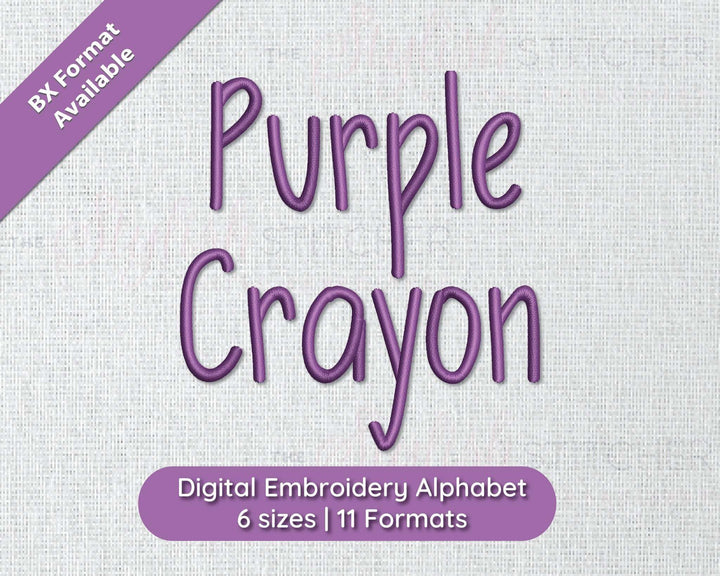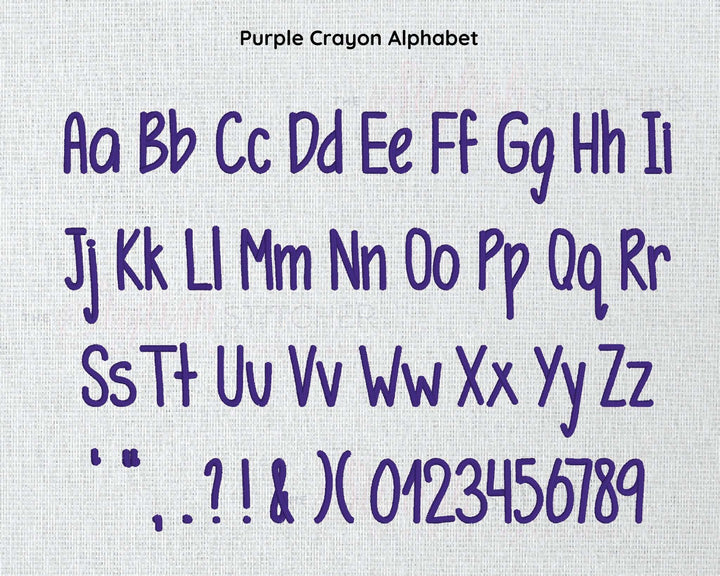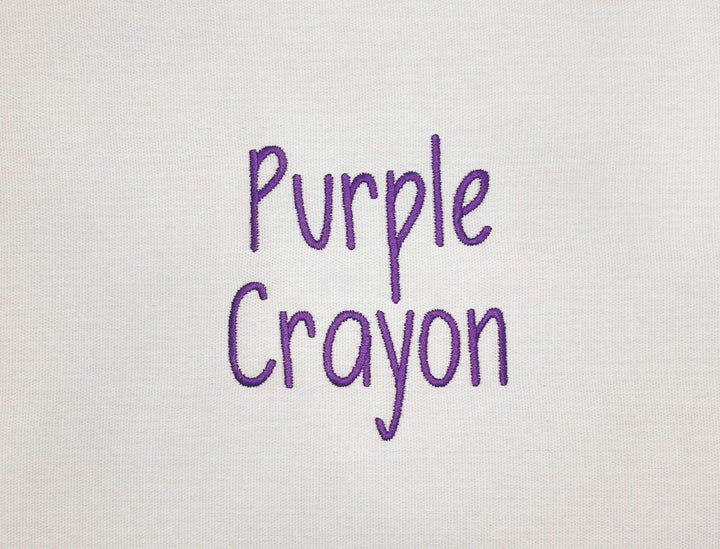
Purple Crayon Digital Embroidery Font
Bring a touch of whimsy to your embroidery projects with Purple Crayon, a font that captures the joy and simplicity of childhood drawings. This machine embroidery font is designed to mimic the spontaneous and cheerful lines drawn by a crayon, perfect for adding a personalized and playful element to any fabric.
Ideal for children's apparel, quilts, or school gear, the Purple Crayon font is as versatile as it is delightful. Each character boasts slightly irregular lines and curves, giving the impression of being hand-drawn.
Purple Crayon is not just a font; it's an expression of creativity and fun, perfect for projects that require a personal, handcrafted touch. Whether you're stitching up a storm for a special little one or adding a dash of mirth to your craft projects, this font will surely bring your creations to life with its charming appeal.